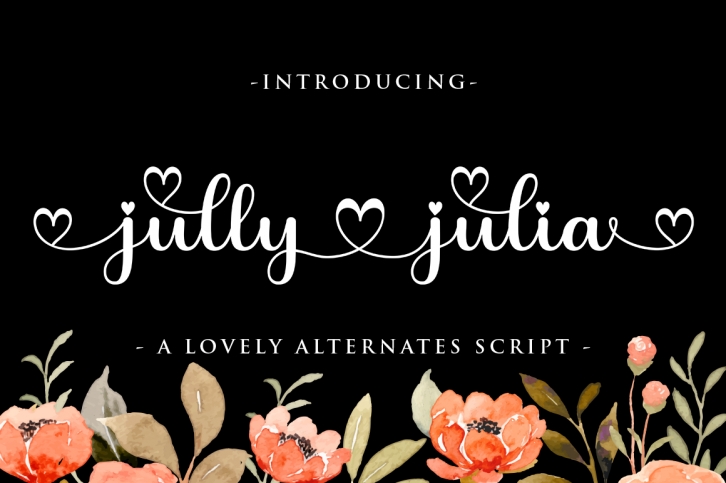
jully julia! Fresh modern handwritten font with decorative characters and dancing baseline. So beautiful on invitations such as crafts, greeting cards, branding materials, business cards, quotes, posters and other design concepts.